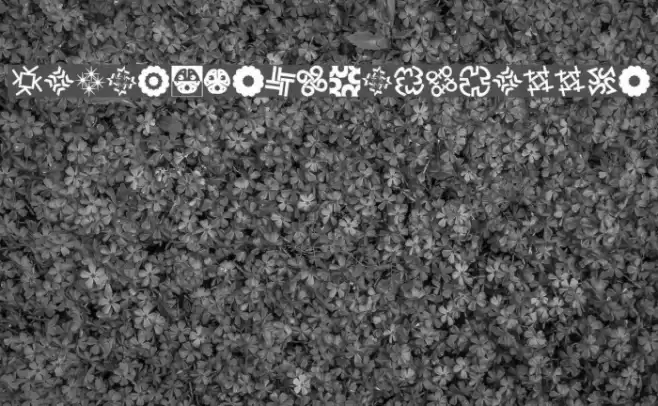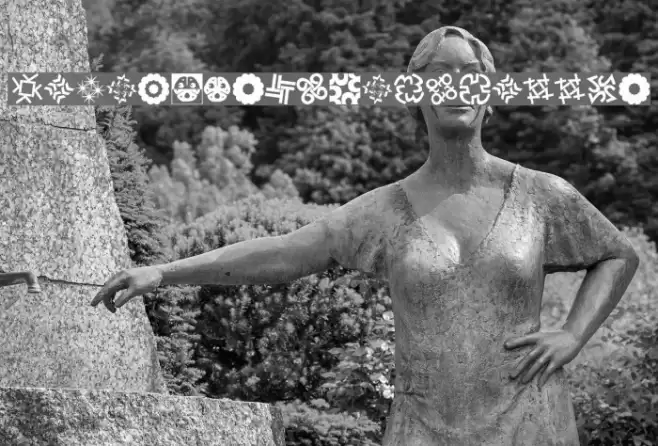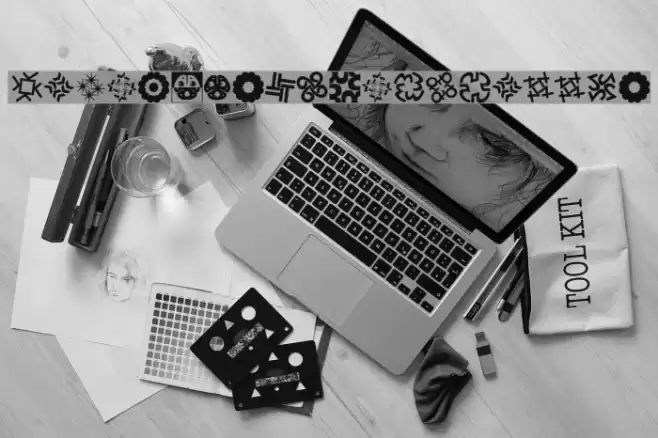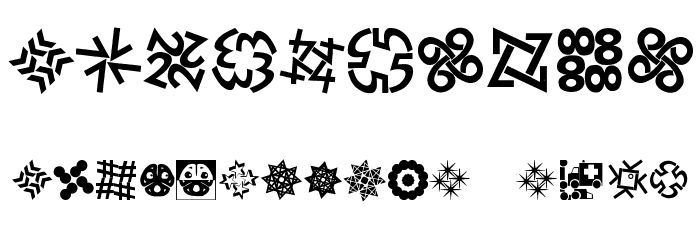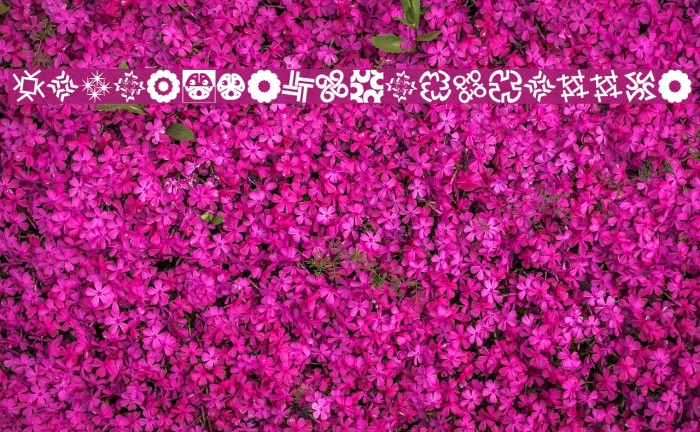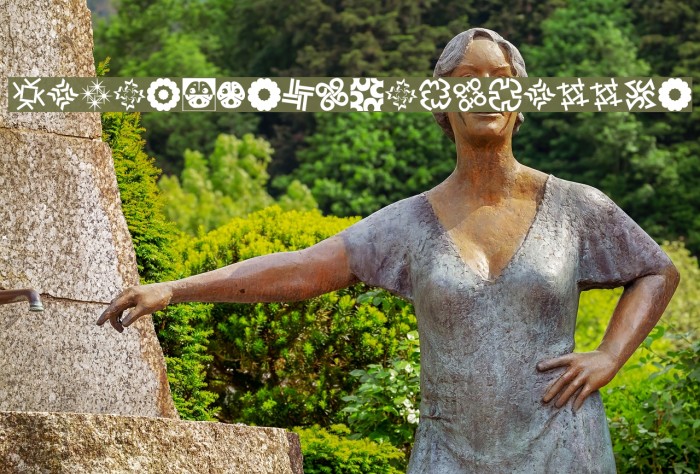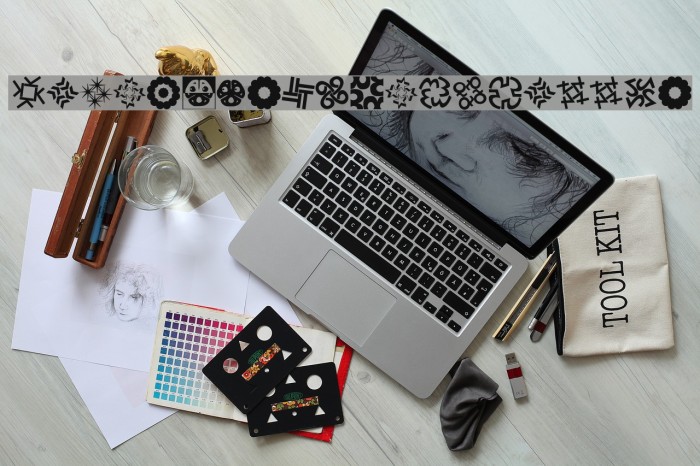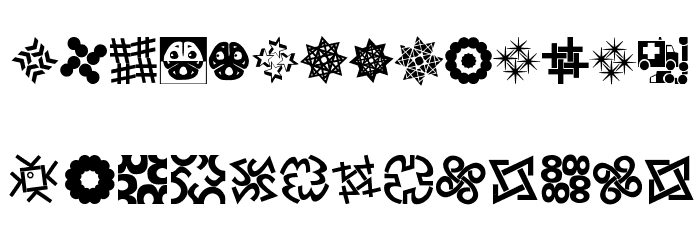
KaleidoTypesQuattro Font
KaleidoTypesQuattro Description
This collection of symbols is a decorative display of intricate geometric patterns and abstract shapes. Each character is uniquely designed with a kaleidoscopic effect, featuring symmetrical and repetitive motifs that create a visually striking appearance. The symbols vary in complexity, with some incorporating circular and angular elements, while others resemble snowflakes or floral designs. The bold, black lines and filled shapes contribute to a strong visual impact, making these symbols suitable for artistic and creative projects. The overall style is modern and abstract, with a focus on symmetry and balance.
A decorative collection of geometric and abstract symbols with a kaleidoscopic effect from Uncategorized fonts.
- Proposed Projects: Ideal for use in graphic design projects, such as logos, posters, and digital art, where a unique and artistic touch is desired.
- Overall Style: Modern, Abstract
- Use Case: Logos, Posters, Digital Art